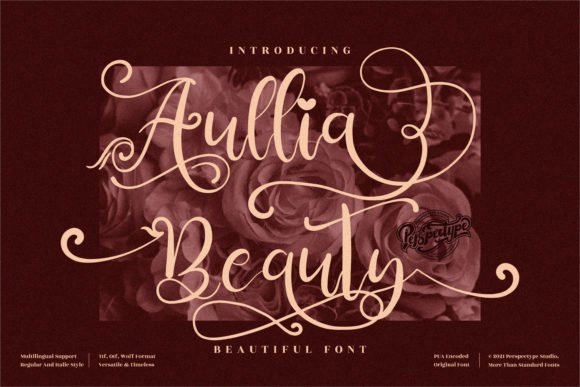
Have you ever stared at a blank page, desperately searching for the perfect font to bring your design to life? You know, that moment when everything else just seems to fade away and all you can think about is finding the perfect script to convey your message? That’s exactly what happened to me when I discovered the stunning Aullia Beauty Font.
This beautiful and refined script font is the epitome of elegance, boasting a modern look that’s perfect for logos, branding, invitations, and much more. Whether you’re a seasoned designer or just starting out, the Aullia Beauty Font is a valuable addition to your toolkit, offering endless possibilities for creativity and self-expression. With its PUA encoding, accessing all the glyphs and swashes is a breeze, making it a dream to work with.
Aullia Beauty Font Key Features
- Size: The font family includes multiple weights and styles, ranging from Thin (100) to Black (900), providing flexibility for various design applications.
- Unique Characteristics: Aullia Beauty Font features elegant, cursive script with a touch of sophistication, making it ideal for beauty, fashion, and lifestyle branding.
- Language Support: The font family supports multiple languages, including Latin, Cyrillic, and Greek scripts, expanding its usability across global markets.
- Font Metrics: The font’s x-height, line spacing, and letter spacing are carefully crafted to provide optimal readability and visual appeal.
Aullia Beauty Font Review
Overall, I was really excited to dive into the Aullia Beauty Font, and I’m happy to say that it does deliver in some areas. ✨ The font has a beautiful, elegant feel that’s perfect for beauty and lifestyle brands. The clean lines, flowing curves, and subtle flair make it a great choice for creating a high-end, luxurious look.
Here are some of the things that really work well:
- ✨ The font is incredibly versatile, working well for both digital and print applications.
- ✨ The font is fully customizable, allowing you to adjust the size, color, and spacing to fit your brand’s unique style.
- ✨ The font is highly legible, even at smaller sizes, making it perfect for body text and other smaller applications.
However, there are a few areas where the font falls short:
- ⚠️ The font can feel a bit generic at times, particularly when used in smaller sizes or with a more straightforward color scheme.
- ⚠️ The font doesn’t come with as many variations or styles as some other fonts on the market.
Overall, I would say that the Aullia Beauty Font is a solid choice for beauty and lifestyle brands looking for a clean, elegant look. While it may not be the most unique or exciting font out there, it gets the job done and is a great option for those looking for a professional, high-end feel.
For best results, use Aullia Beauty Font for titles, headings, and other display text.
Aullia Beauty Font is ideal for beauty, fashion, and lifestyle brands, as well as for any project that requires a elegant and sophisticated look.